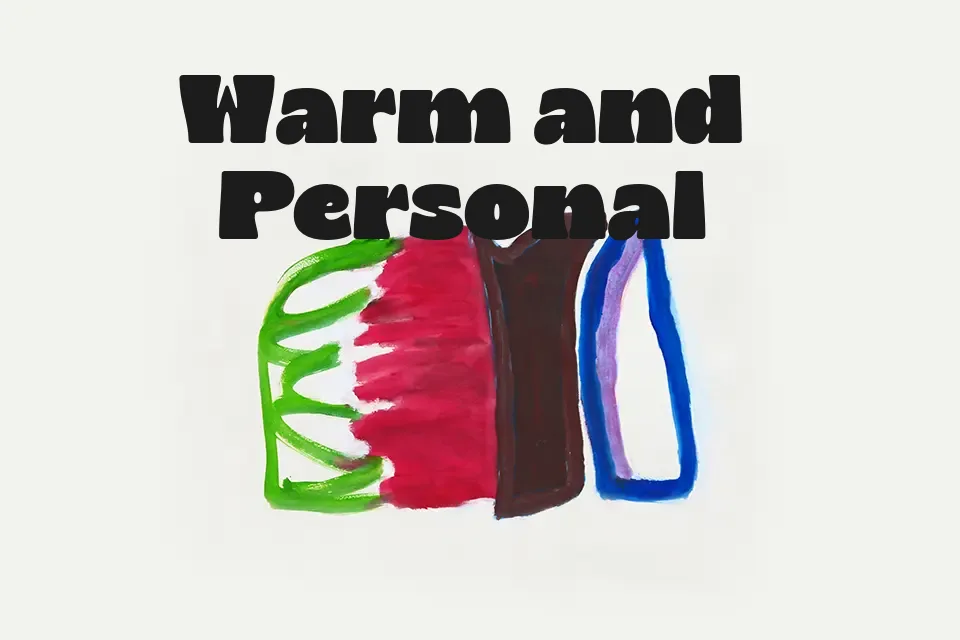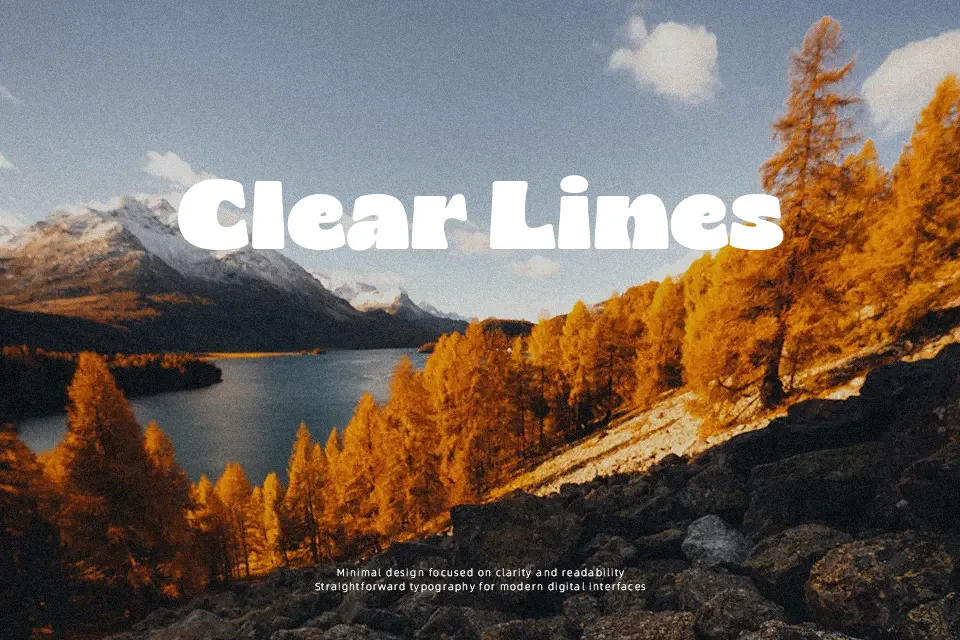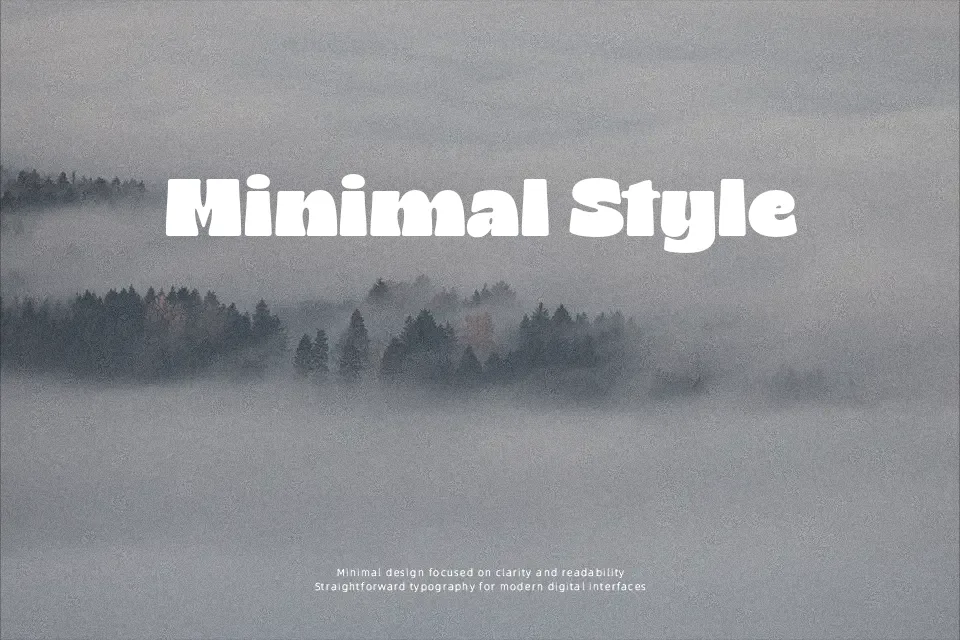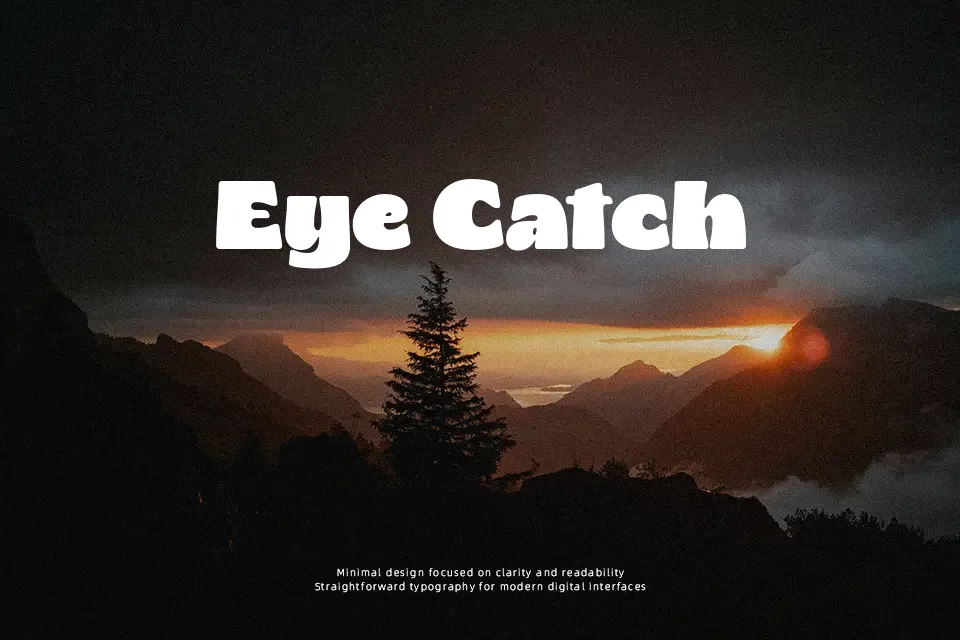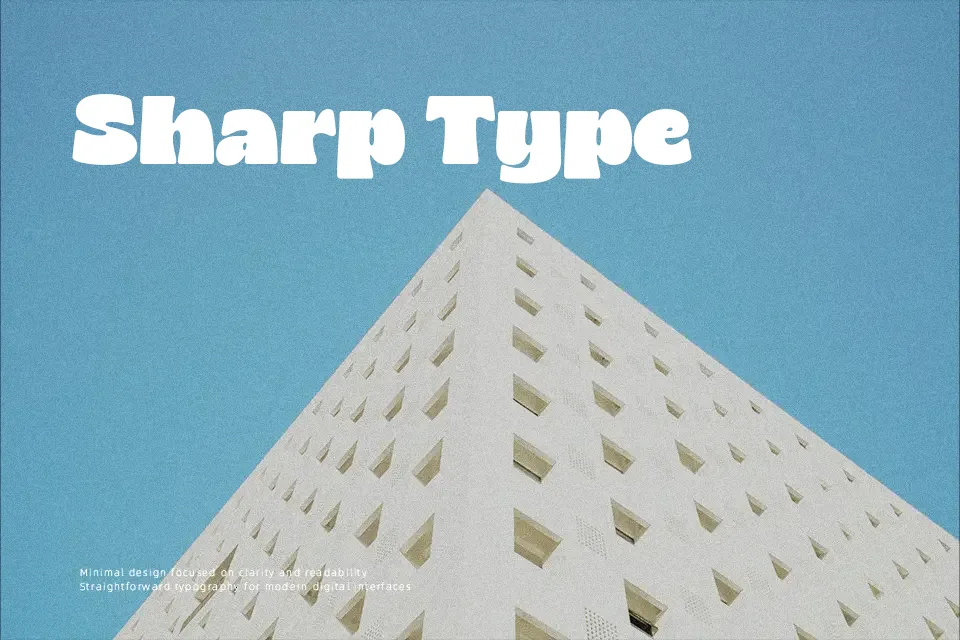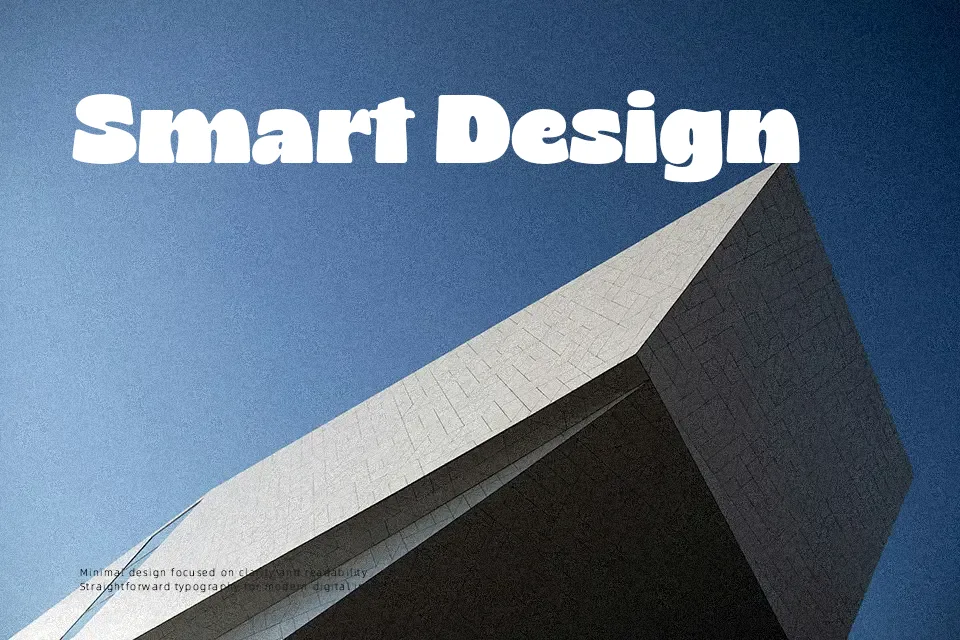
Bilgres Font
Designed by Zarma Type Foundry
Bilgres carries a distinctively heavy weight combined with an expanded, wide structure. The letterforms feature softened, rounded edges and a signature bell-bottom flair that firmly roots the typeface in a 1960s hippie aesthetic. Its thick strokes make a powerful statement while the curved terminals keep the overall vibe friendly and approachable. This bold display font shines when applied to large-scale vintage event posters, dynamic music album covers, or retro-themed apparel packaging. Because the characters are wide and heavily weighted, Bilgres struggles in tight spaces or lengthy paragraphs where readability drops significantly. It functions beautifully as a standalone focal point but becomes overwhelming if paired alongside other highly decorative typefaces.
Retro-themed music festival posters
Bold lifestyle brand packaging
Eye-catching social media headers
Dense body text or editorial layouts
Minimalist corporate brand identities
Mobile user interface menus
Perfect for logo, music, and packaging, with a bold and display style.